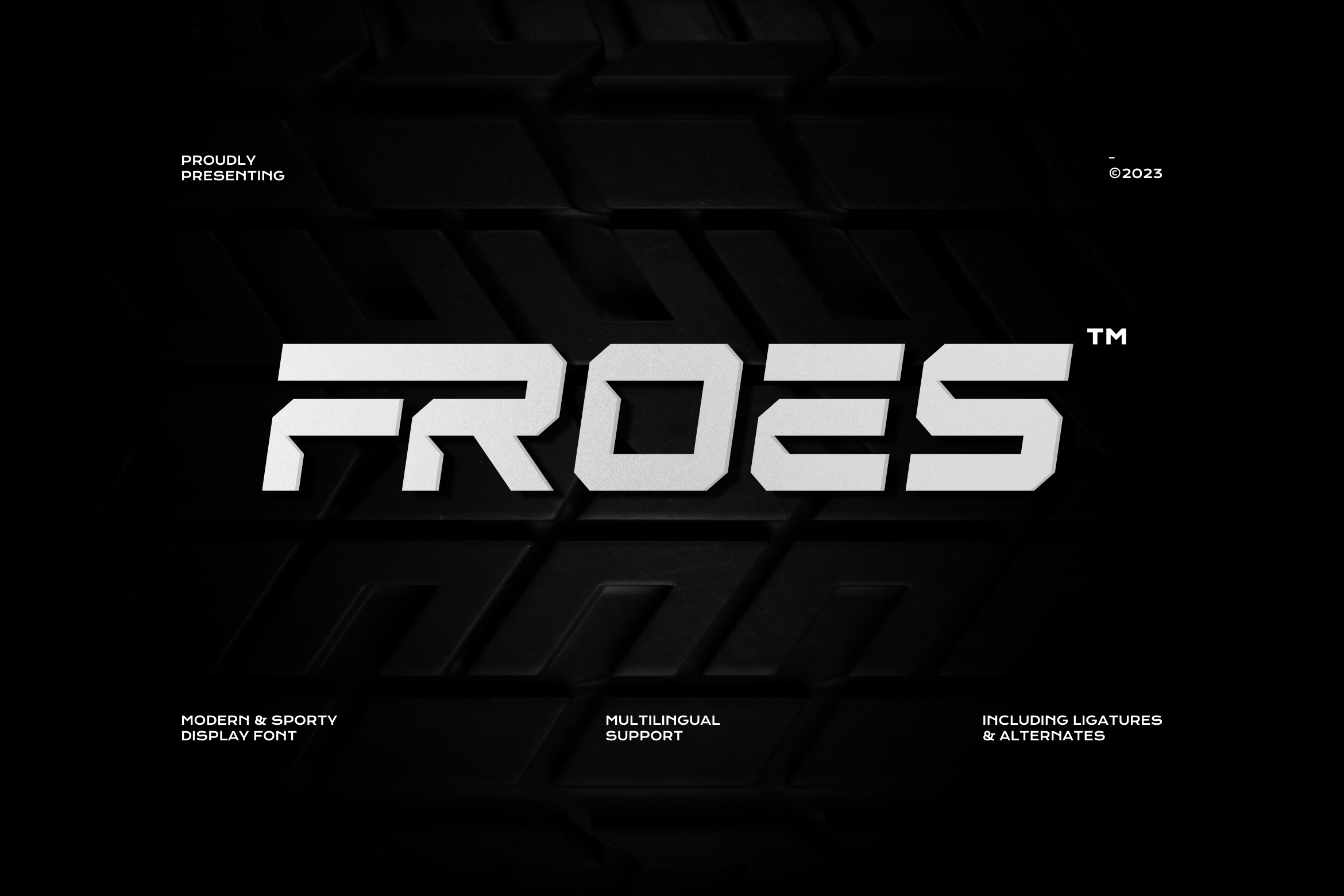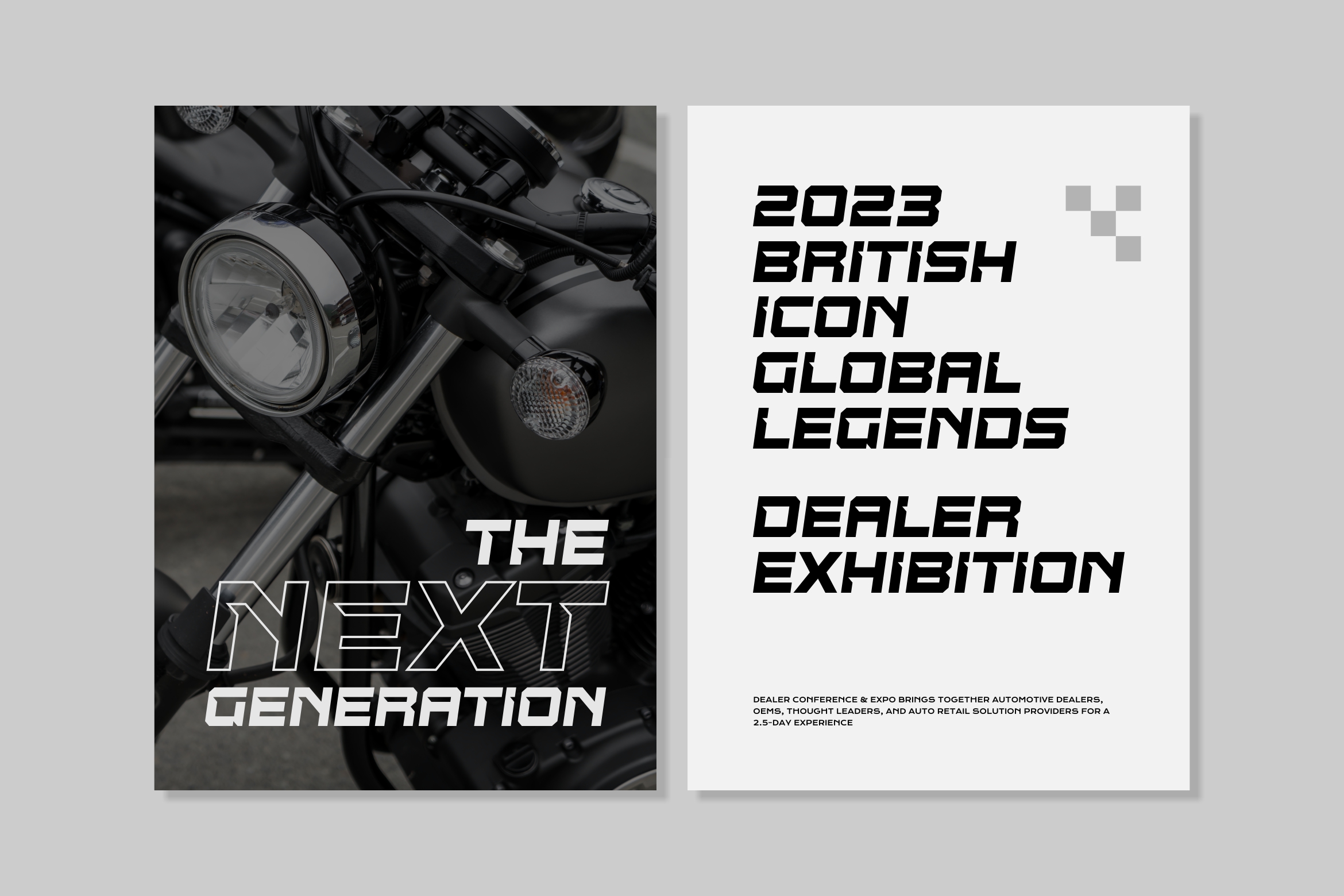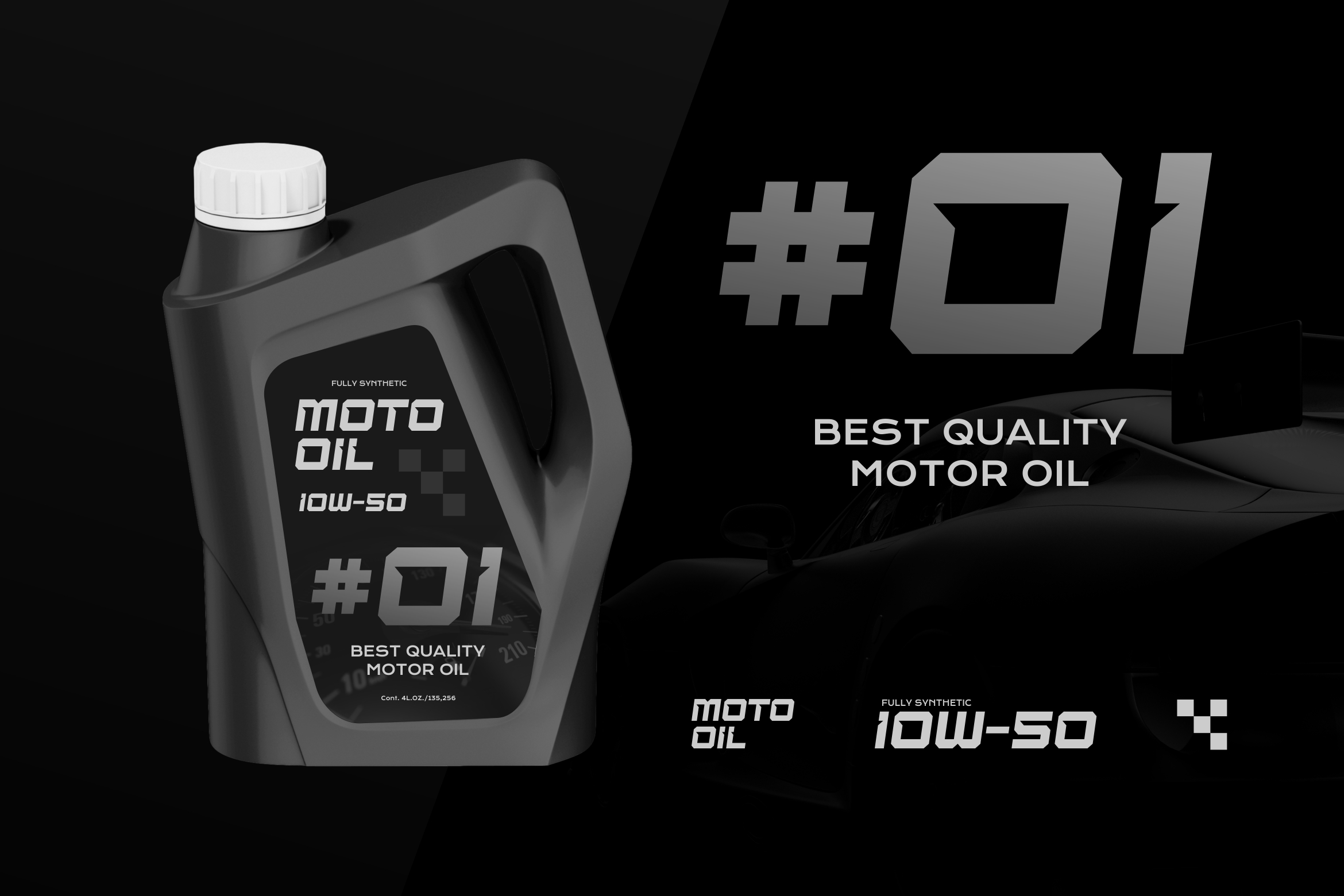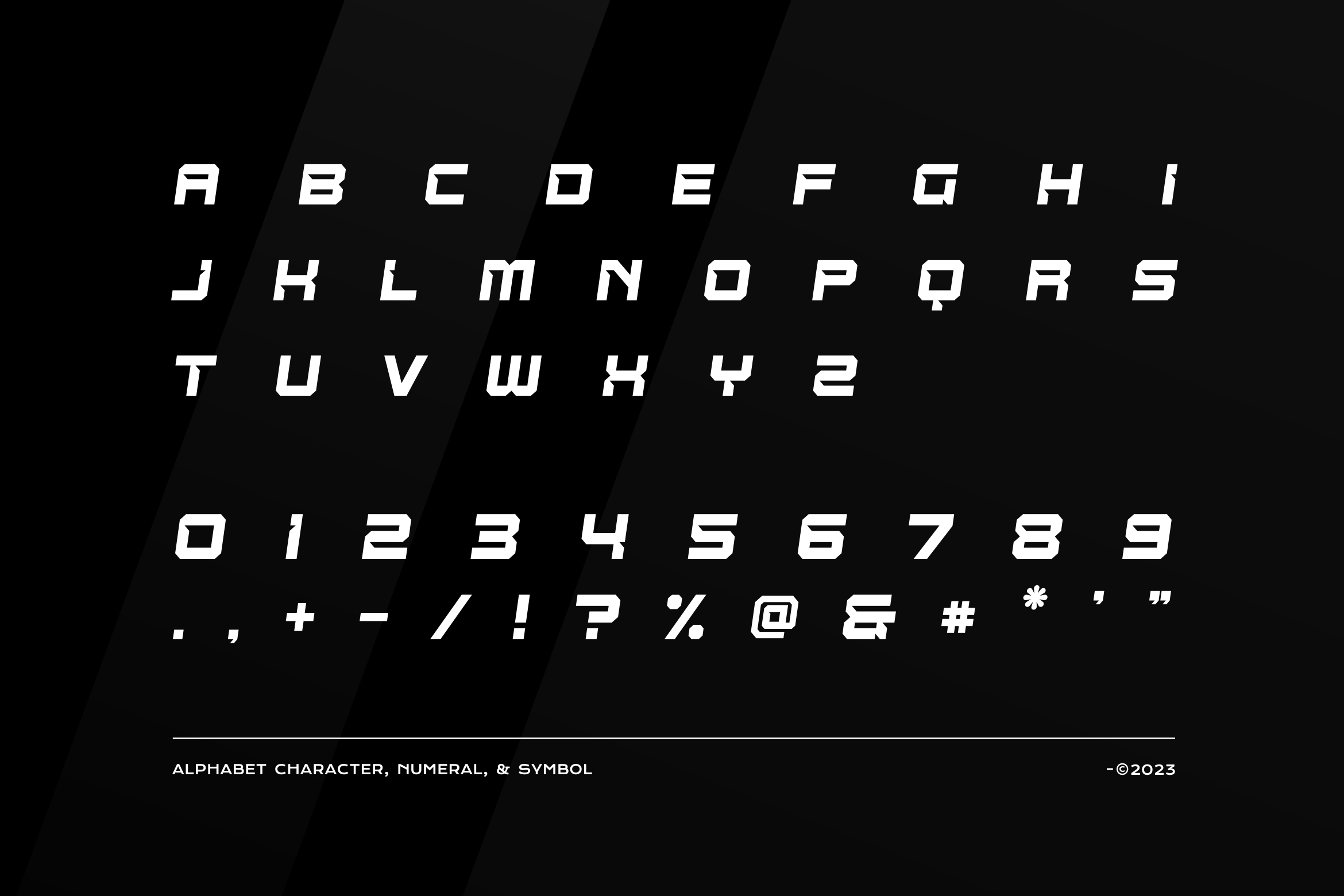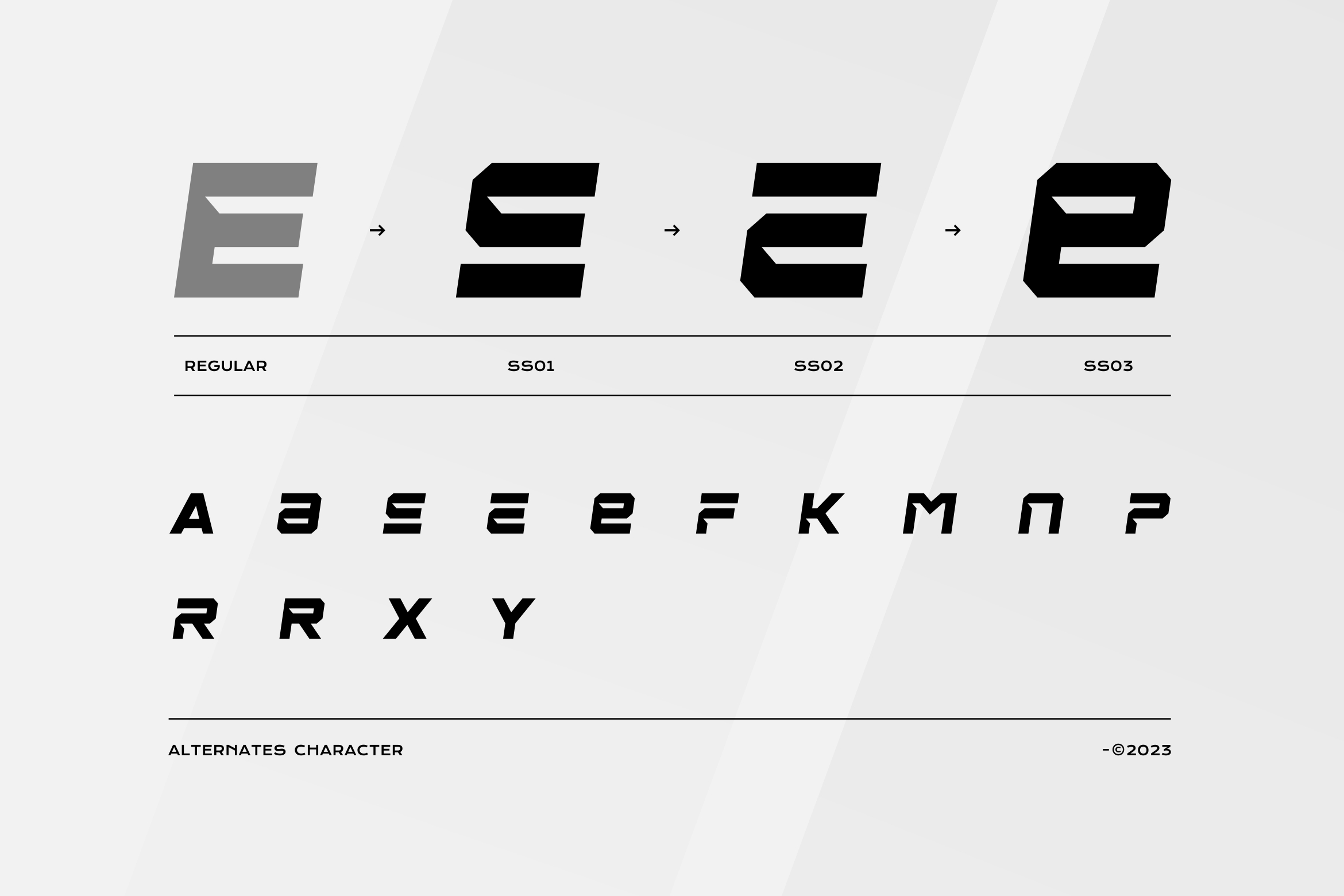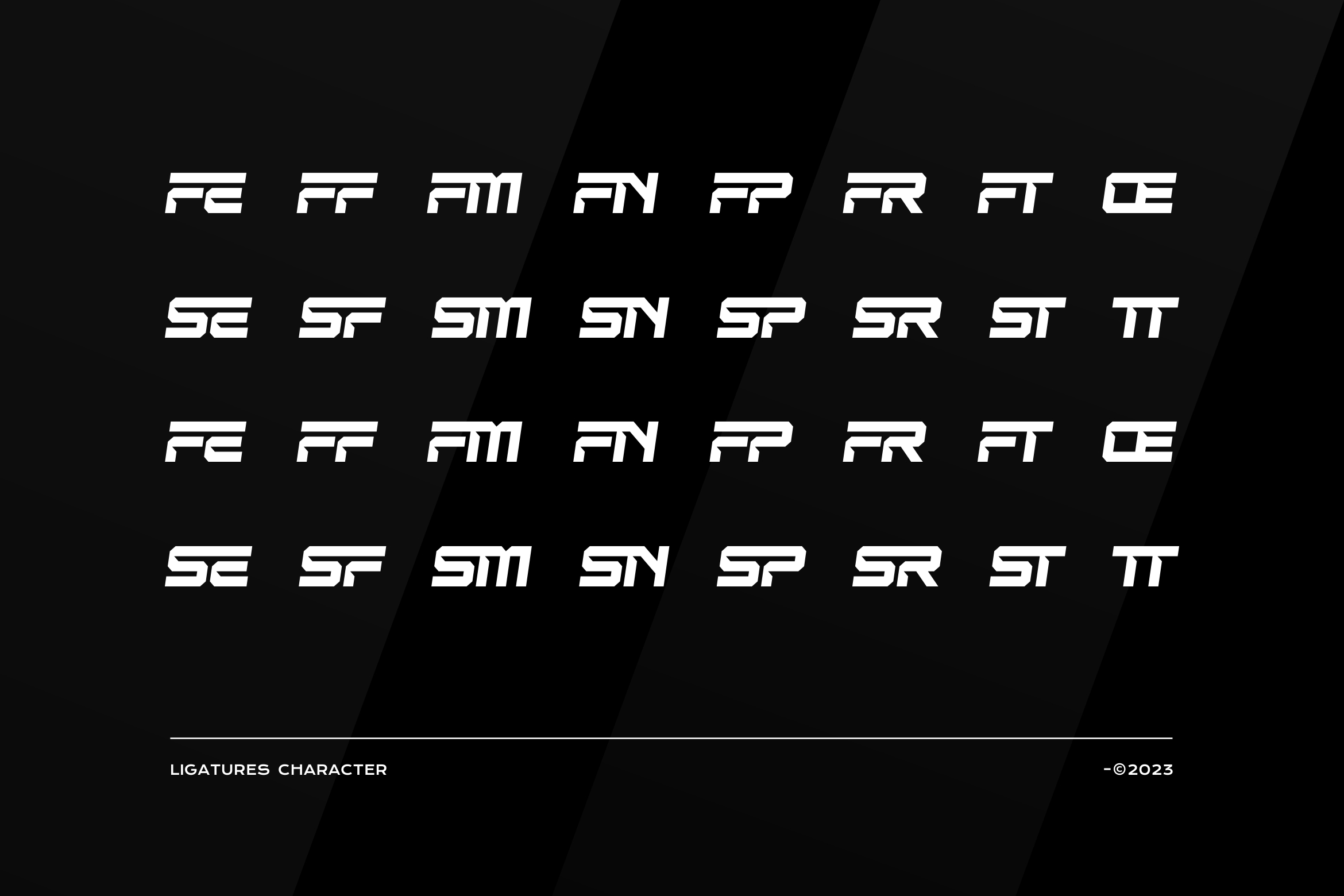
Froes is a modern and sporty display font designed with sharp angles, aerodynamic cuts, and a futuristic aesthetic. With bold uppercase characters, unique alternates, and powerful ligatures, Froes evokes the speed and precision of motorsports, tech innovation, and cutting-edge branding. Each character is engineered for impact, making it perfect for logos, automotive visuals, sportswear, and energetic advertising.
Packed with multilingual support, Froes offers a variety of stylistic sets to let you customize your typographic voice. Whether used on motorcycle exhibitions, oil packaging, or modern apparel branding, Froes captures attention and communicates strength, velocity, and modern identity in every detail.
Froes